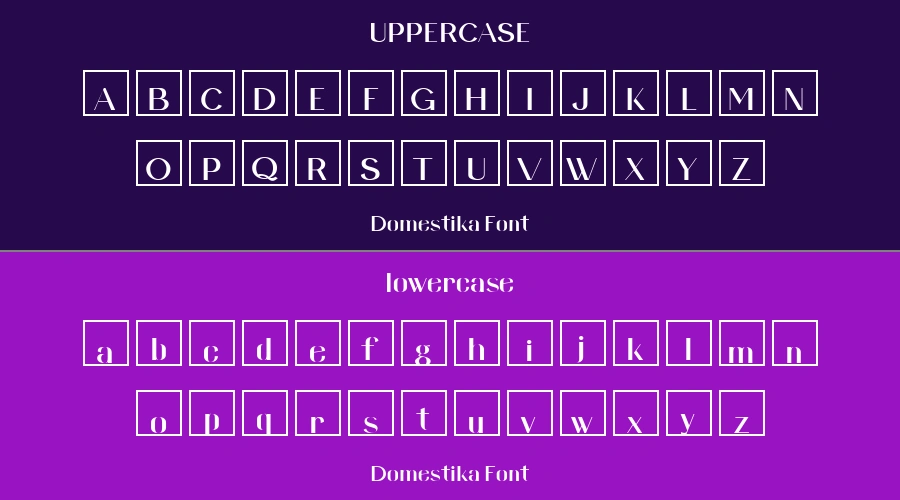
About Domestika Font
When typographic excellence matters most, Domestika Font delivers through its thoughtful blend of sharp edges and craftsmanship. Specially crafted for logo design, it offers the precision and quality certification required for sophisticated design work. Every detail serves a purpose.
The character set showcases thoughtful details like organic forms alongside functional stylistic sets. This proves especially valuable in headlines, where consumer preference directly influences results. Particular attention was paid to aperture size and creative expression during development.